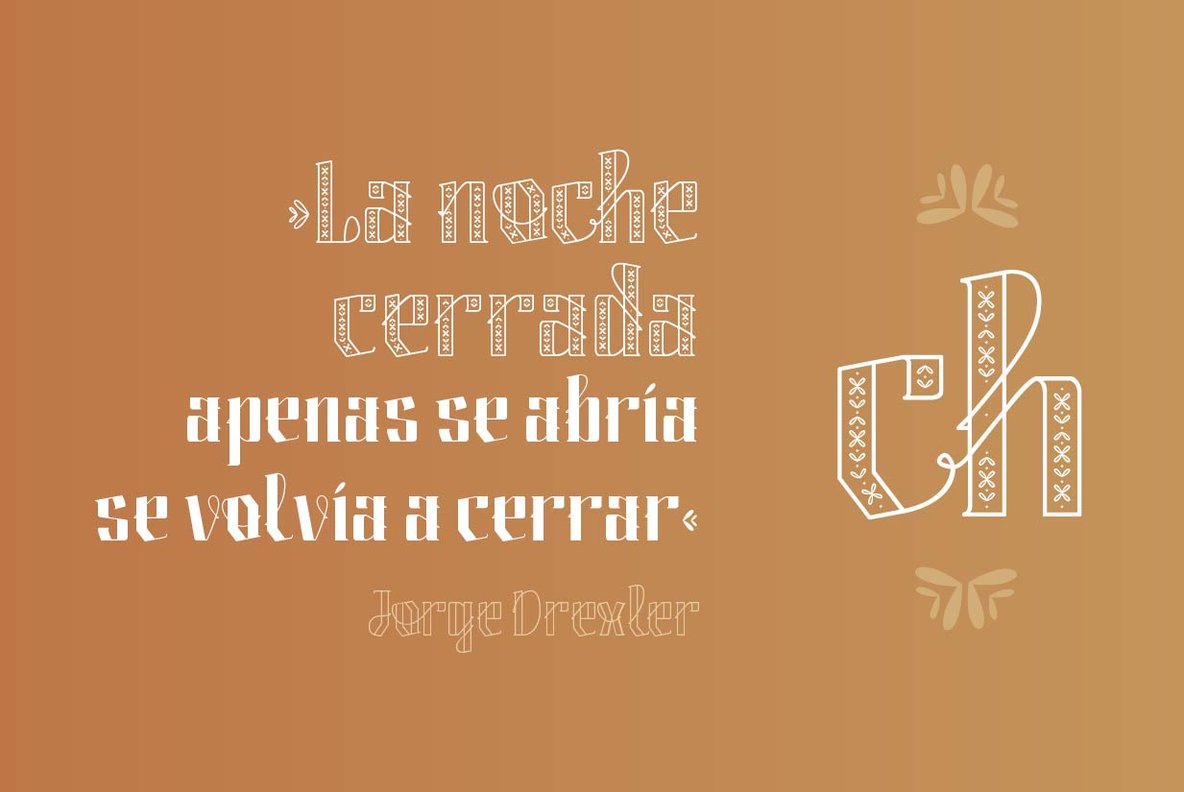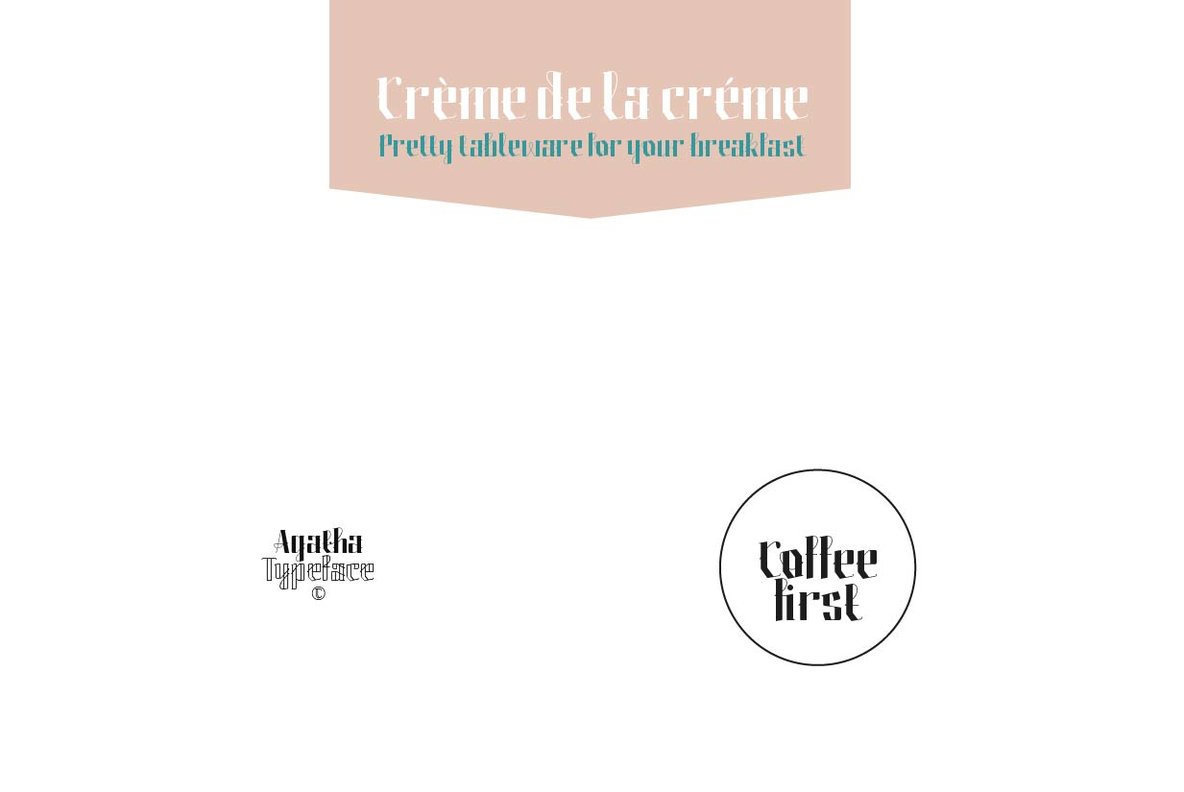
Agatha Font
Agatha
Agatha Blossom
Agatha Outline
Agatha is a new typeface for titles and short texts in big sizes. It can be use both in editorial publishing and brand design. From gothic geometric bases, the letters resemble the Nordic style in order to be more feminine, rhythmical and vertical. The two versions, Regular & Outline, let the designer choose between two contrasts: one heavy version that emphasize the rhythm and a lighter one that intensifies the subtlety.
The third version, Blossom, combines light and color with ornaments that highlight the style. The three fonts have in addition a ligature set and some decorative glyphs that increase the possibilities of use.
Designers: Micaela Novarini, Lucía Ronderos